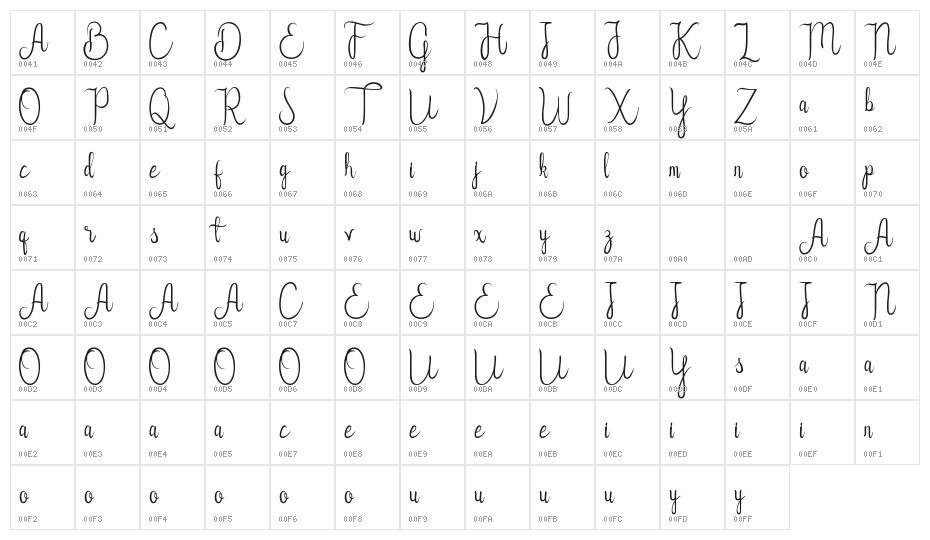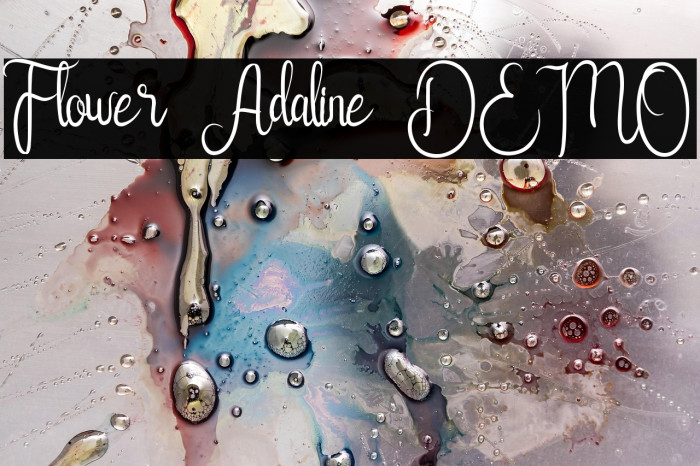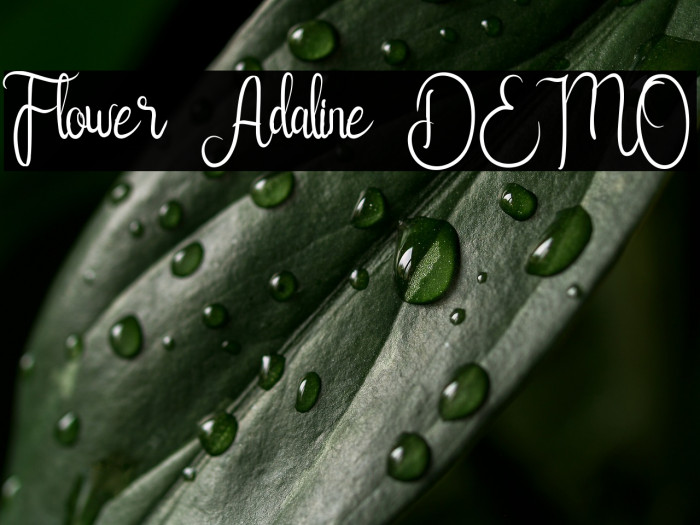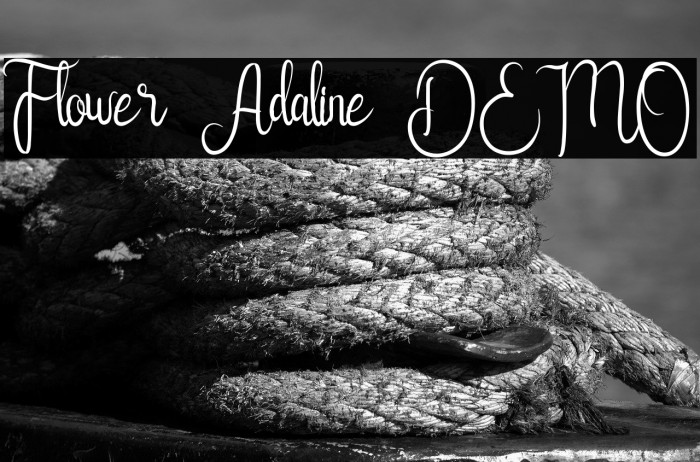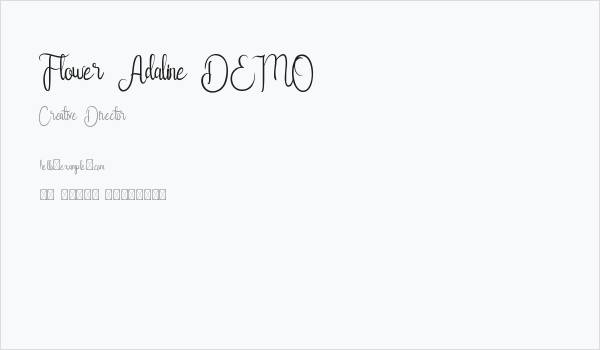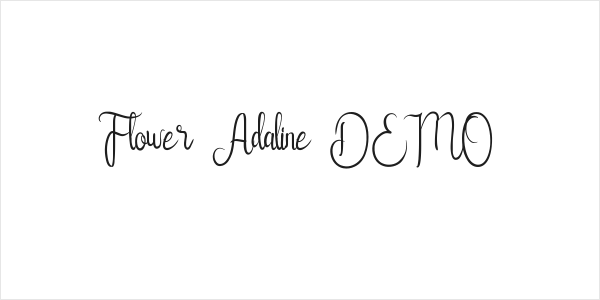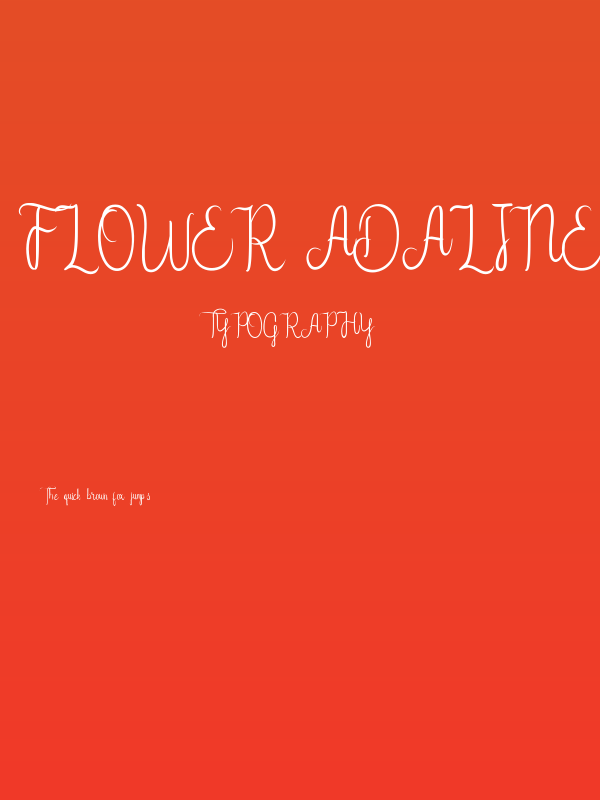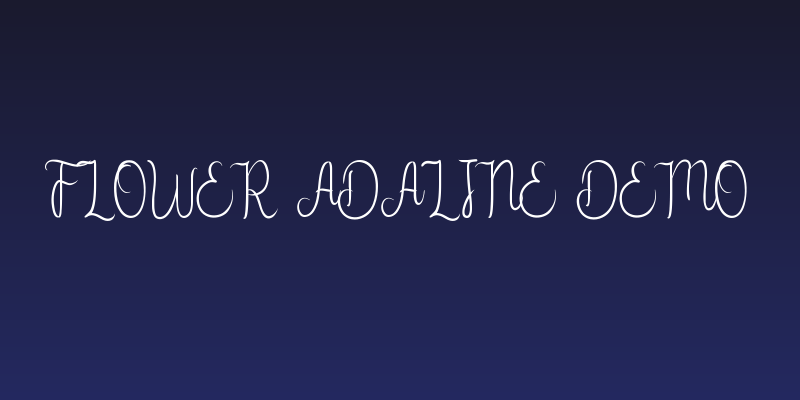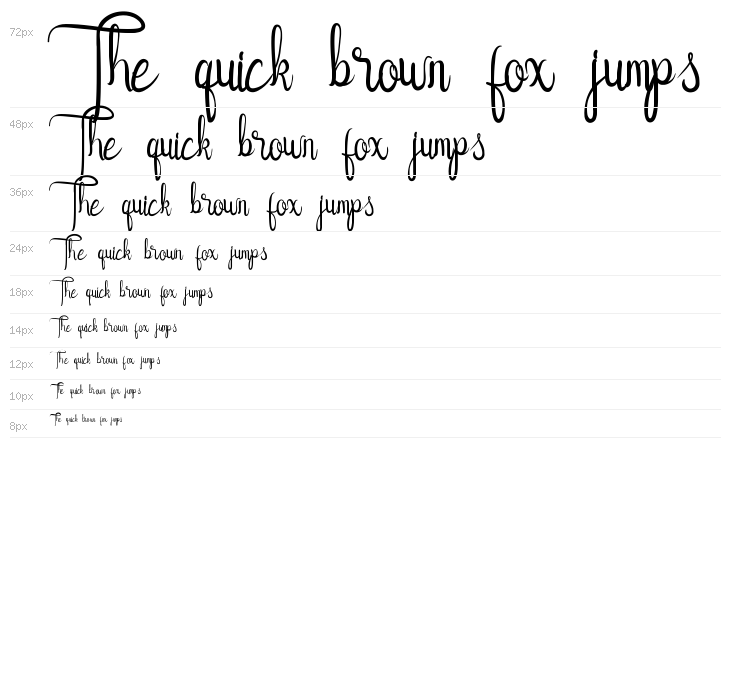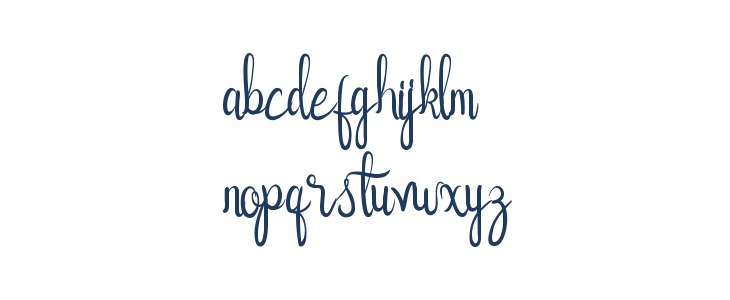
Flower Adaline DEMO Font
Flower Adaline DEMO Description
This font features a whimsical and elegant script style, characterized by its flowing, interconnected letters that mimic the fluidity of handwriting. The uppercase letters are tall and slender, with graceful loops and curves that add a touch of sophistication. The lowercase letters maintain a consistent style, with some letters extending below the baseline, enhancing its playful yet refined appearance. The font's overall design is airy and light, making it suitable for creative and decorative applications. Its unique style is perfect for projects that require a personal touch, such as invitations, greeting cards, and branding materials.
Use CaseLogos, Invitations, Decorative text
Proposed ProjectsIdeal for wedding invitations, greeting cards, personal branding, and decorative projects.